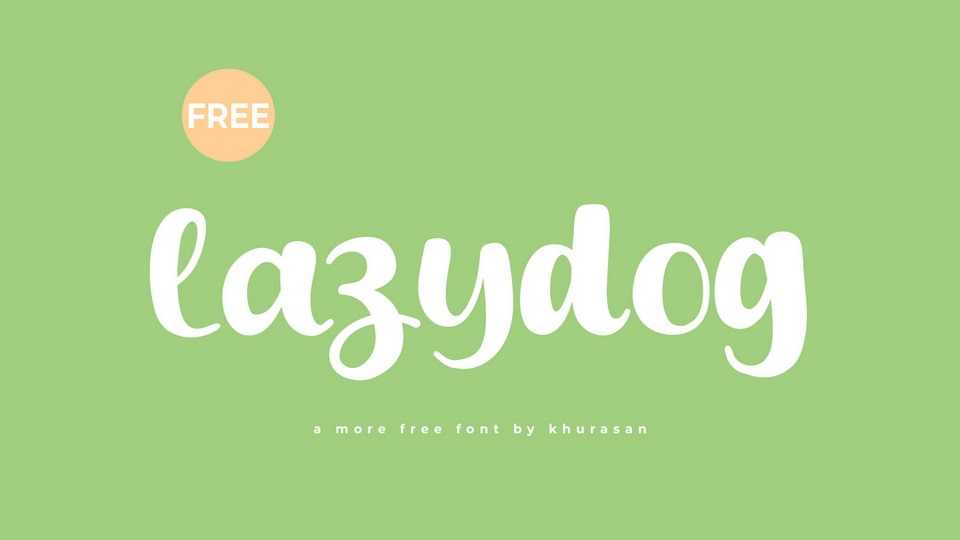
Download Lazydog font, a lovely and cute handwritten script font that adds a touch of warmth and charm to your projects. Lazydog font is delicately crafted, featuring flowing, cursive strokes that capture the essence of handwritten elegance.